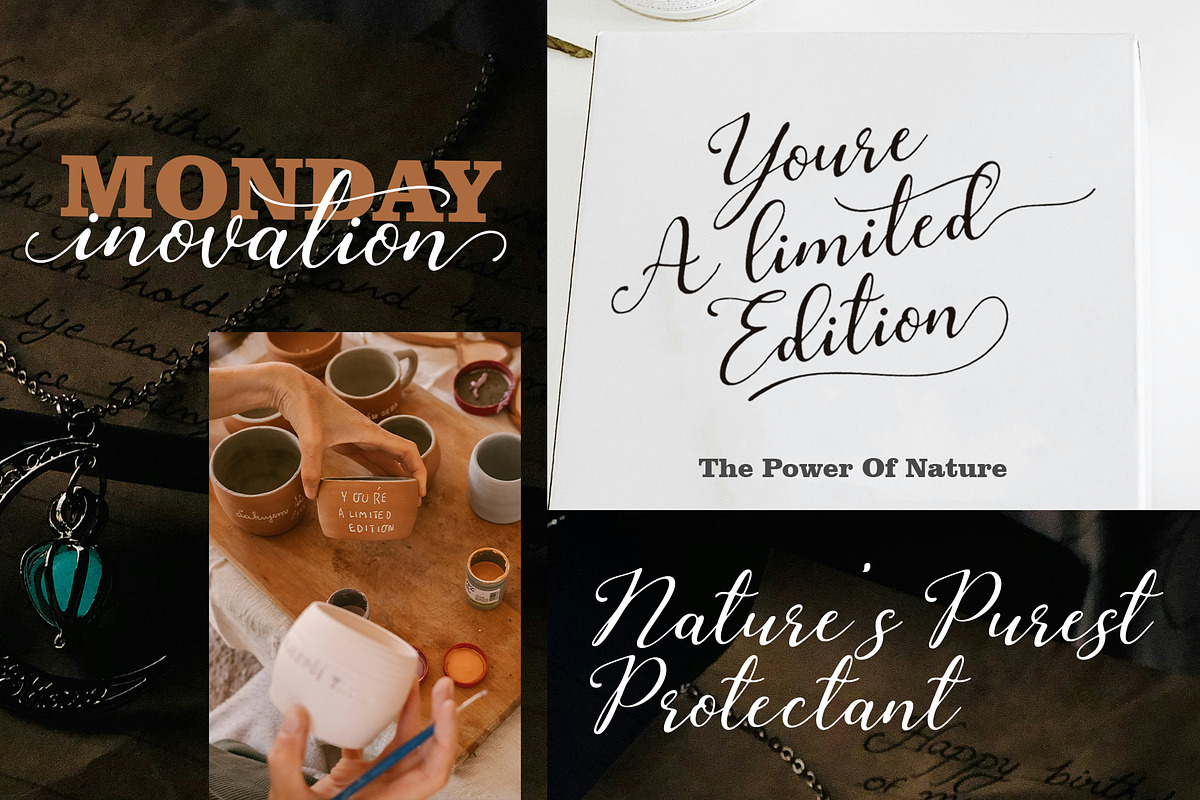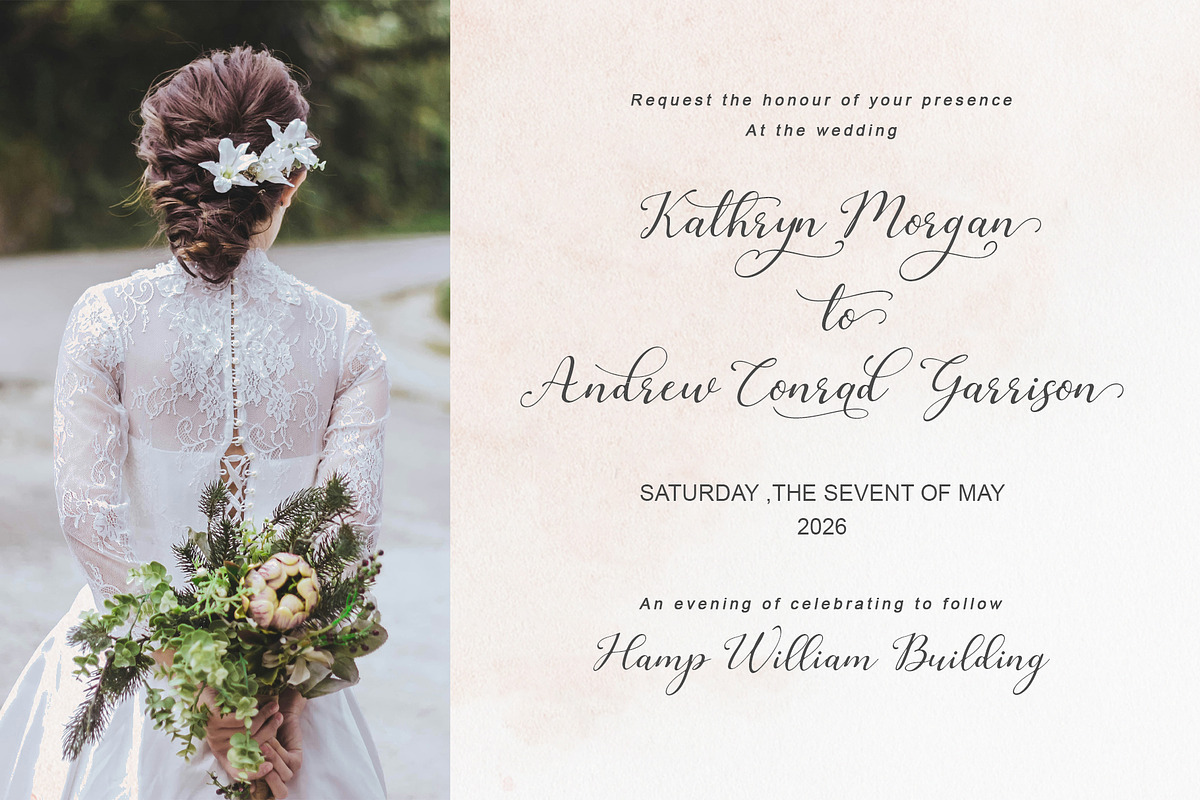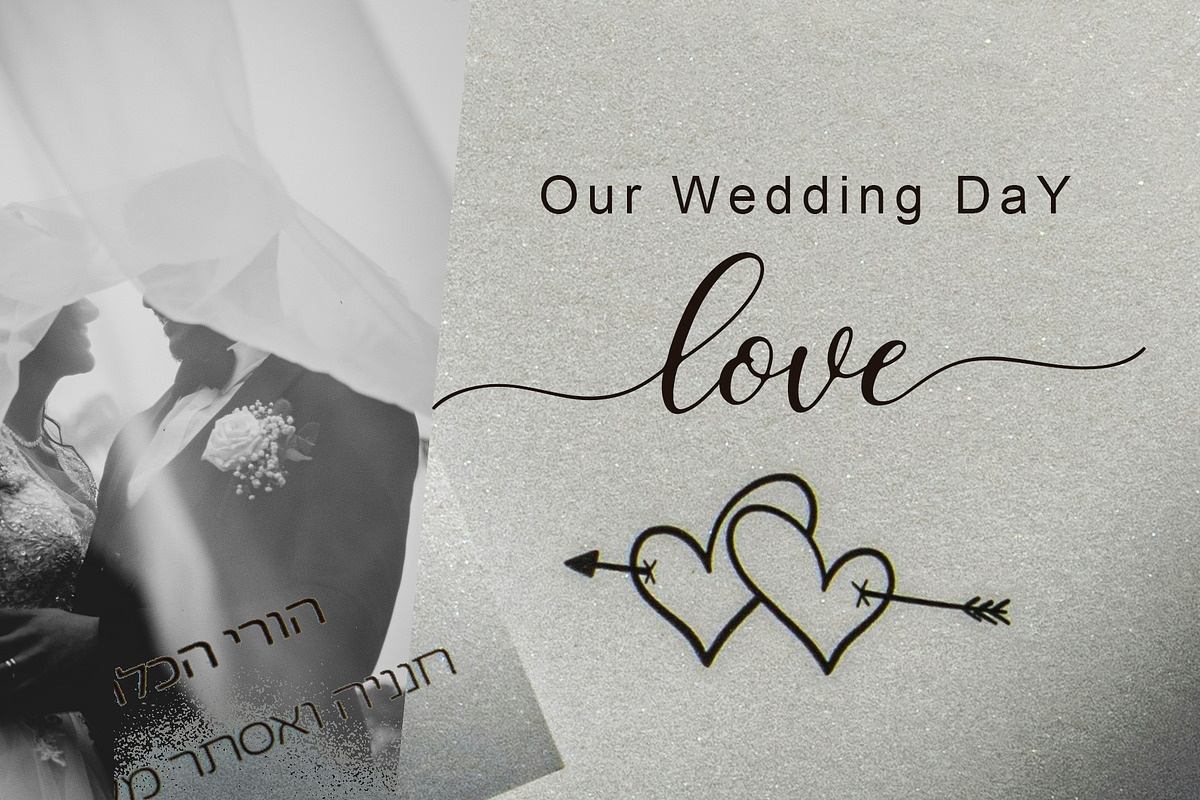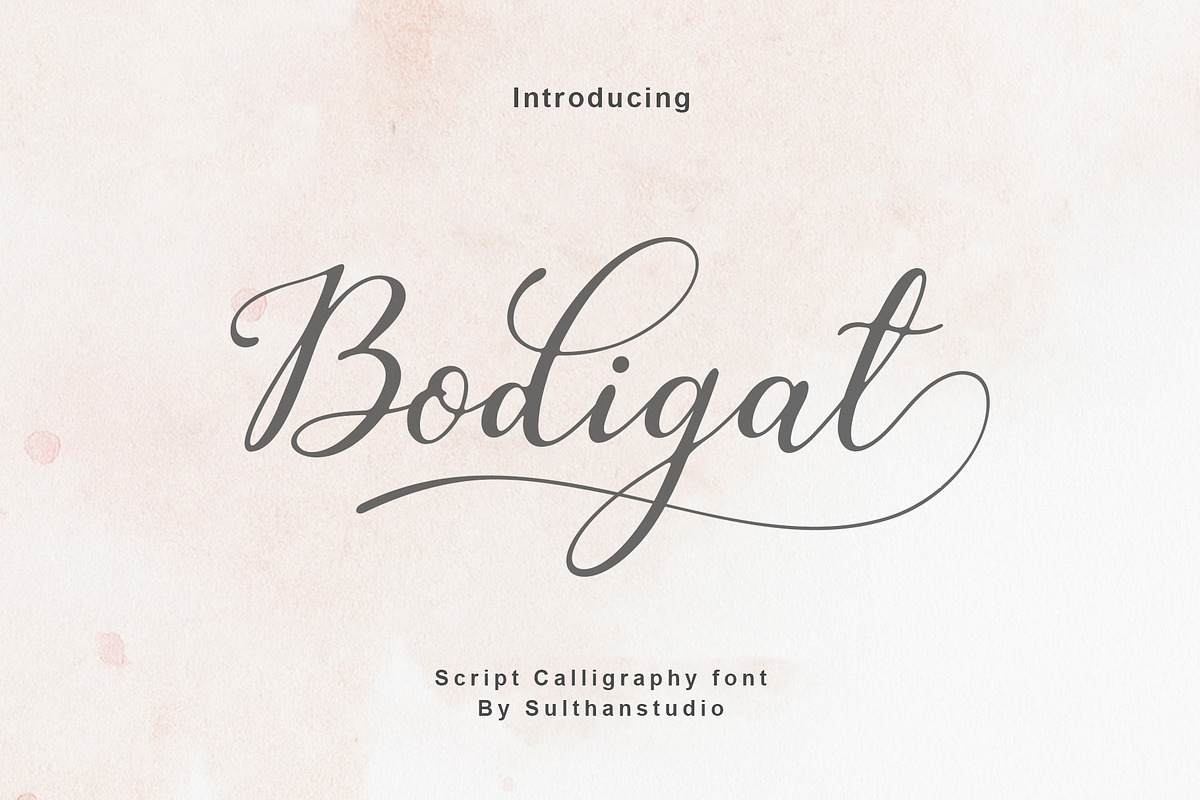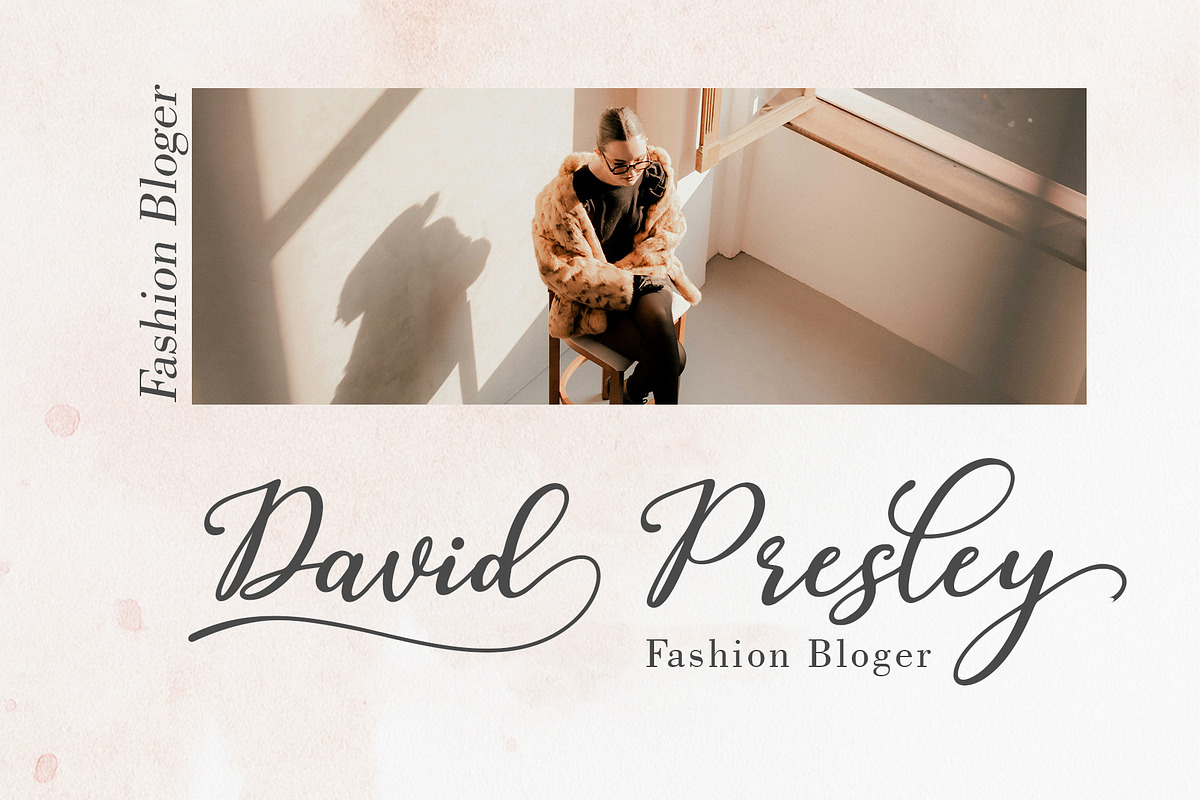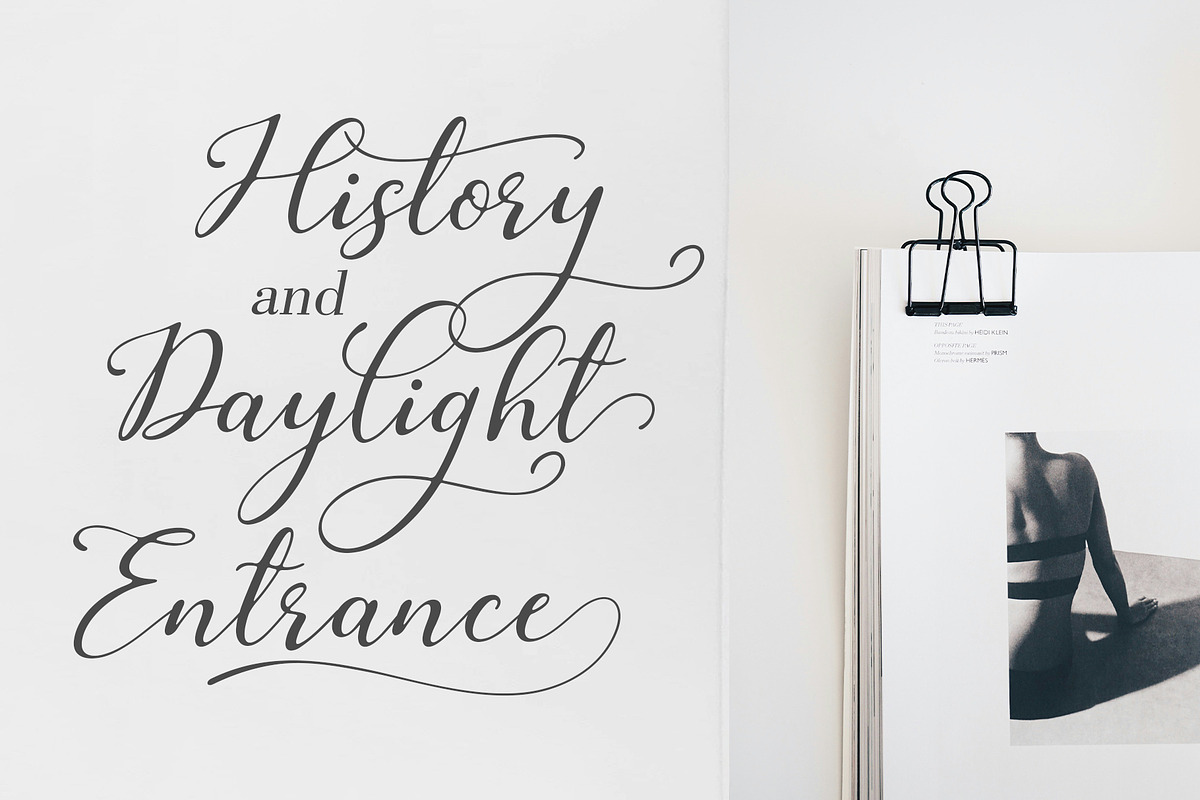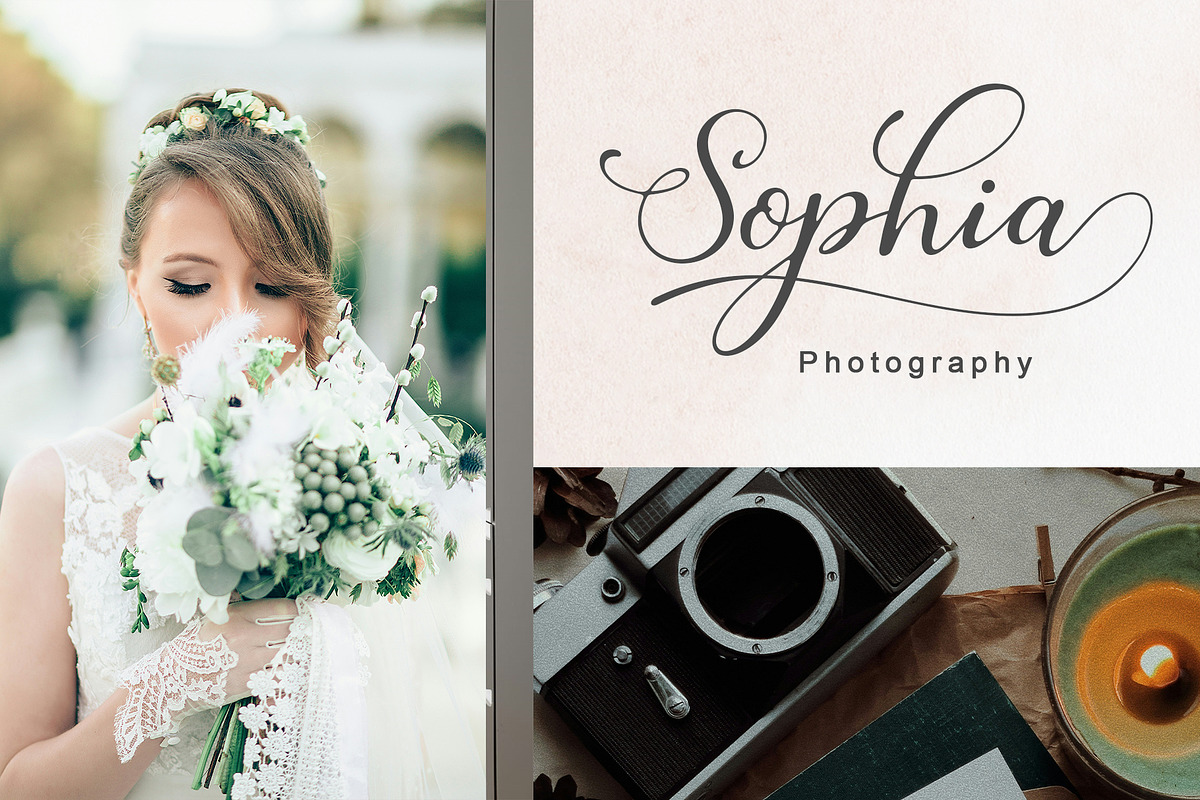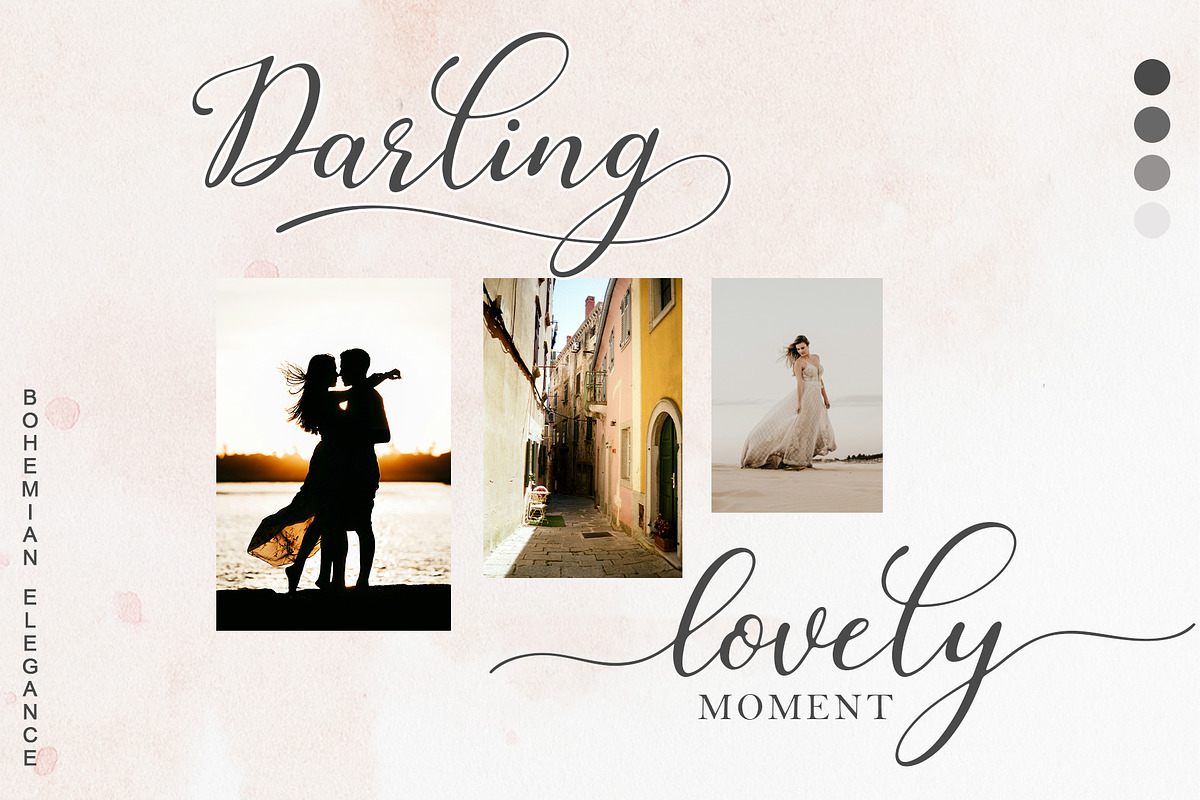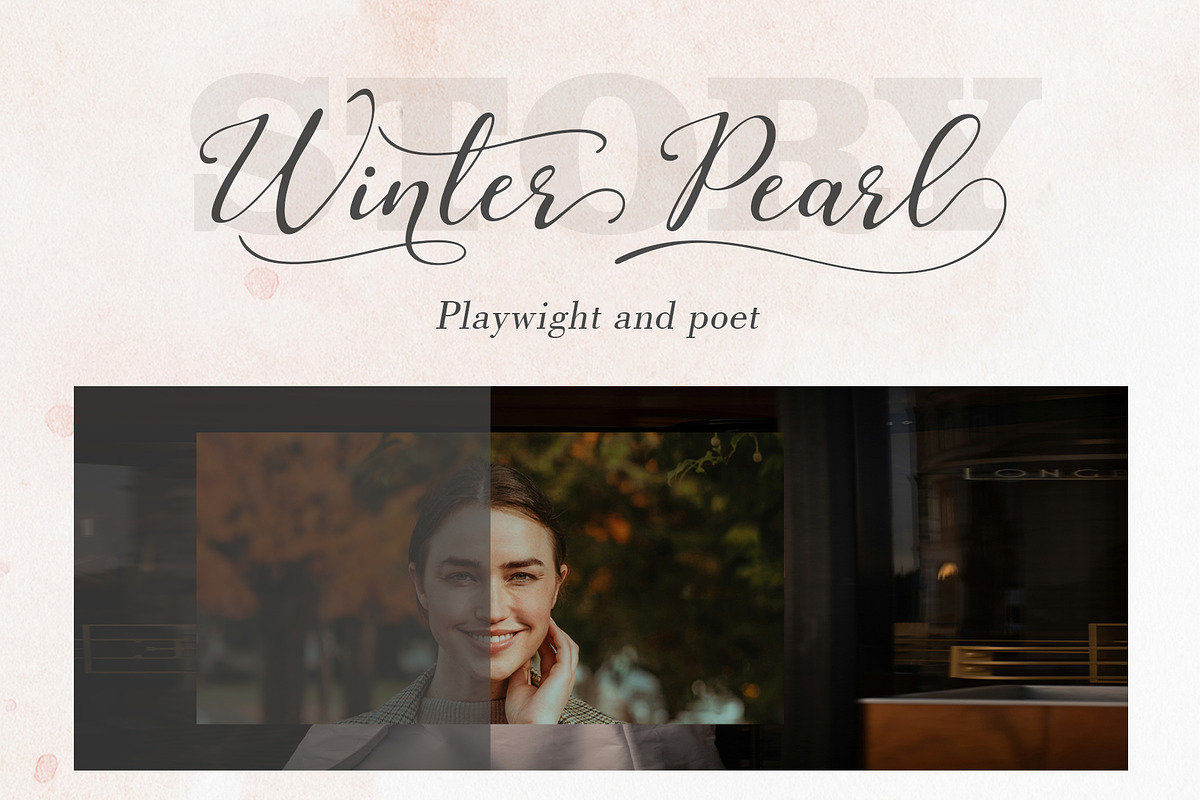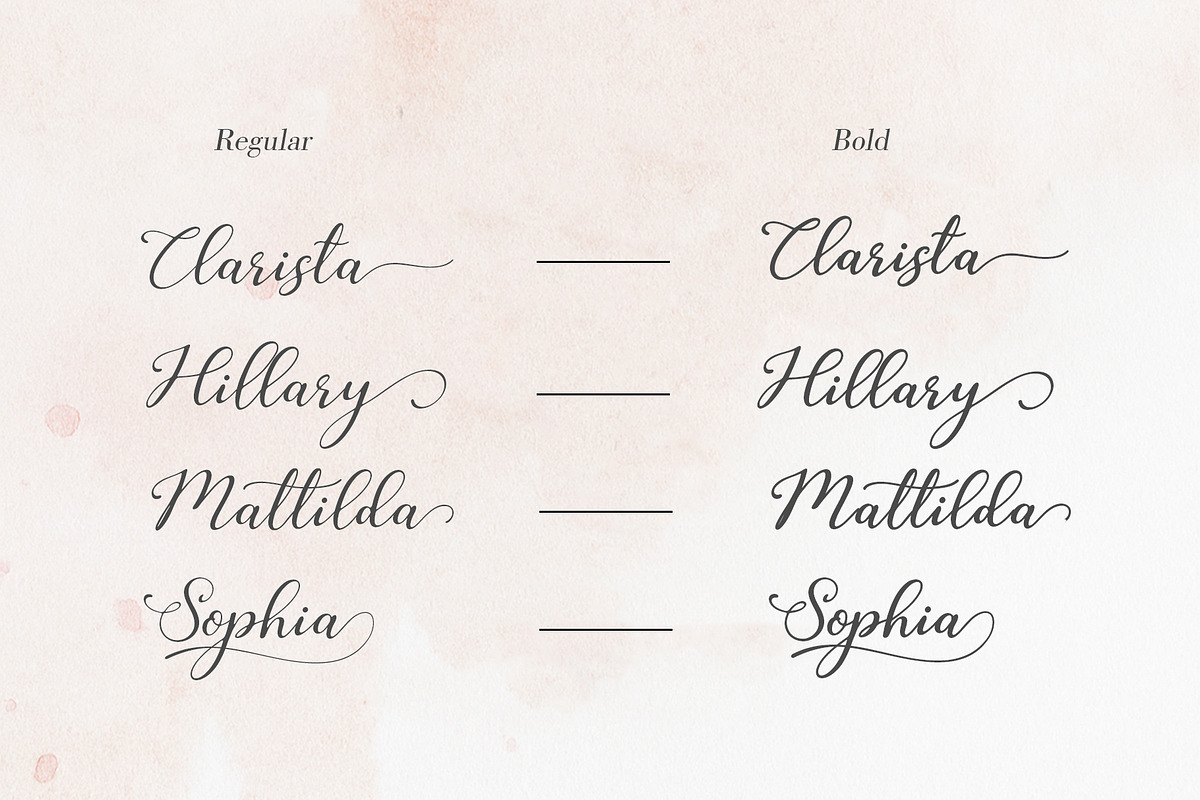
Bodigat
Introduce an enchanting touch of elegance into your design work with Bodigat, a modern script font. Exuding sophistication through its graceful curves and handcrafted details, Bodigat is the secret ingredient in creating breathtaking wedding invitations, distinguished branding, captivating logos, stylish packaging, and mesmerizing media content. Designed to enthrall, Bodigat amplifies the allure of any project it graces.